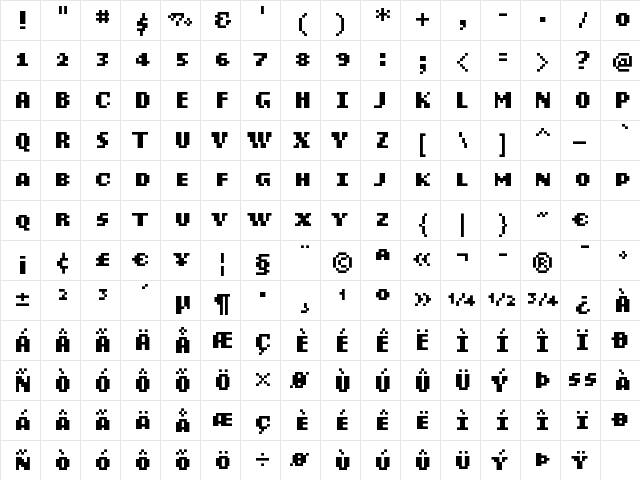
LoResNine NarrowSCB Font Preview
LoResNine NarrowSCB
LoResNine NarrowSCB Font Details
| Style | NarrowSCB |
| Designer | Zuzana Licko |
Design Context for LoResNine Typeface
LoResNine offers clean, dependable letterforms without strong stylistic allegiance, making it a practical choice for designers who need flexibility. Its narrow stance lets it pack a punch even in space-constrained designs.